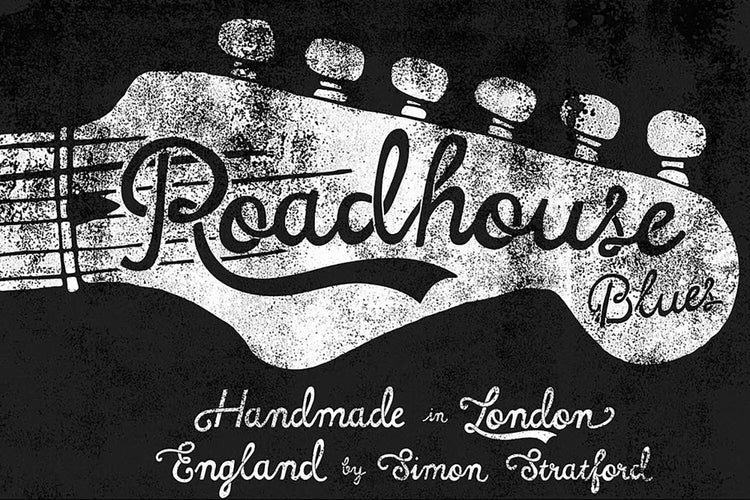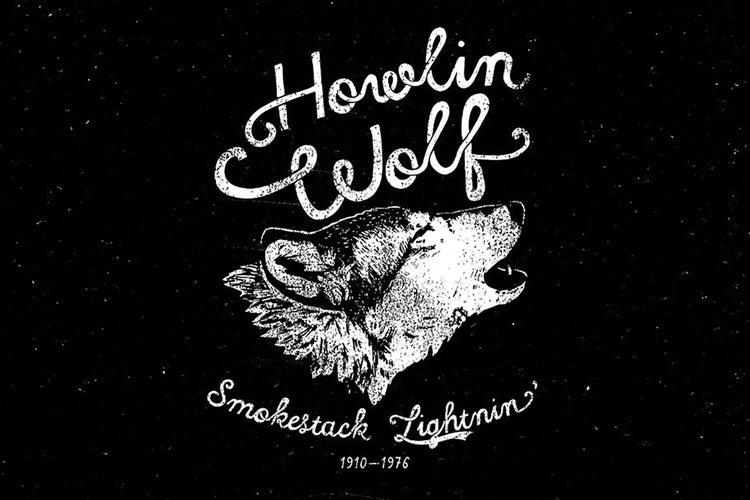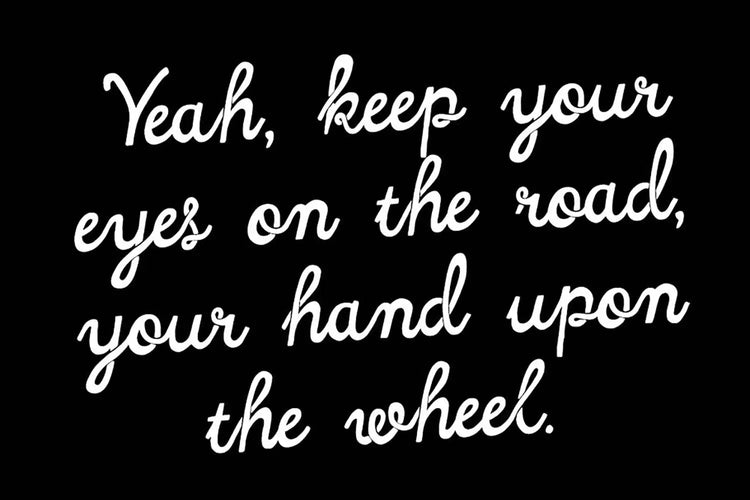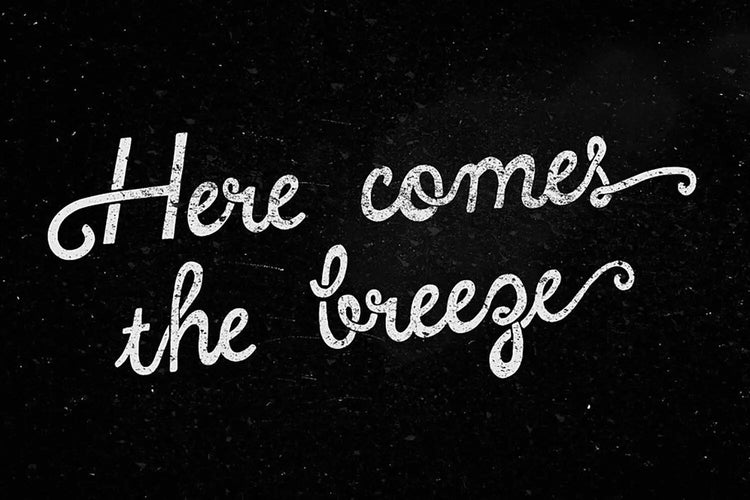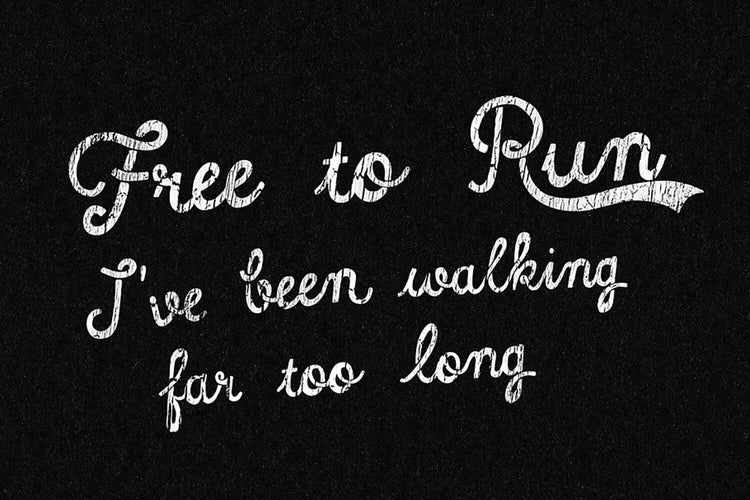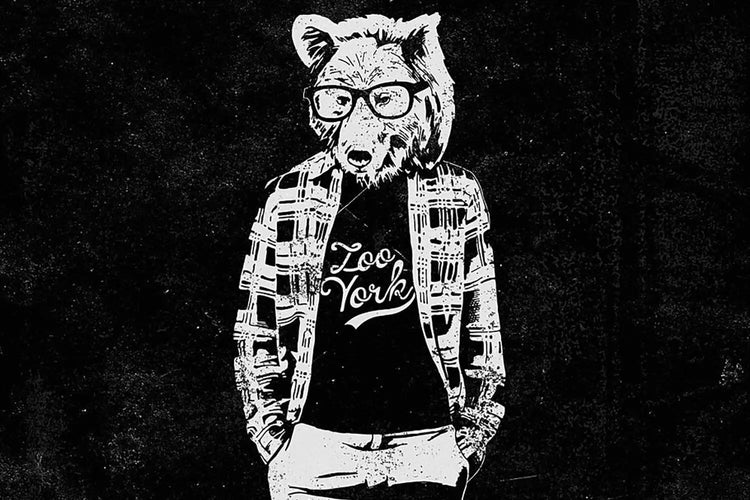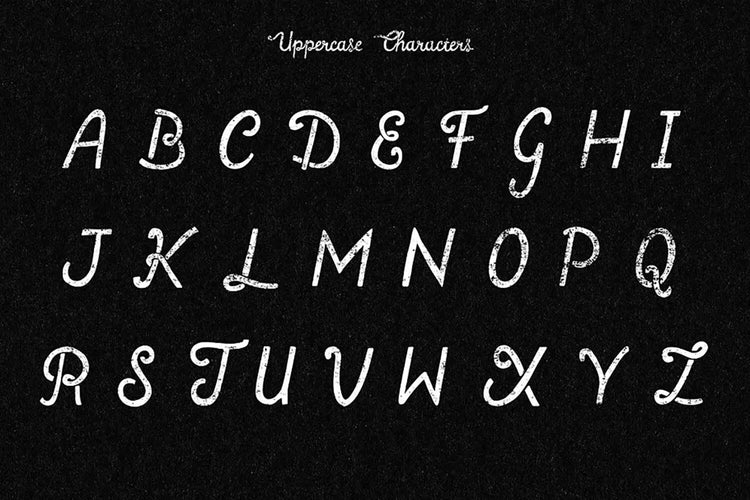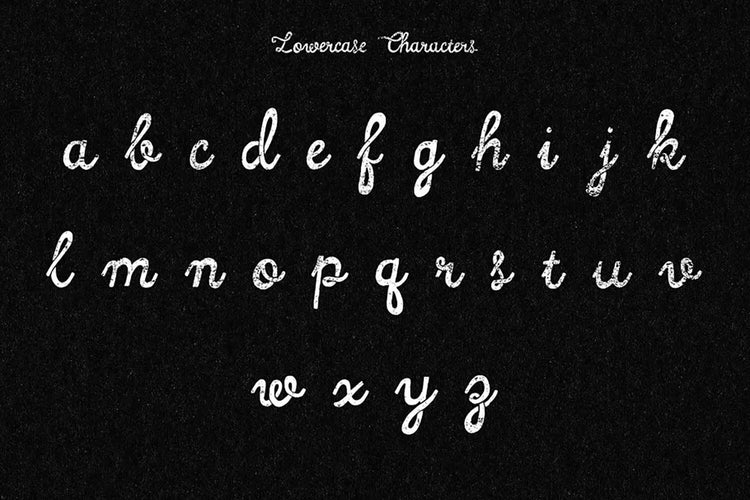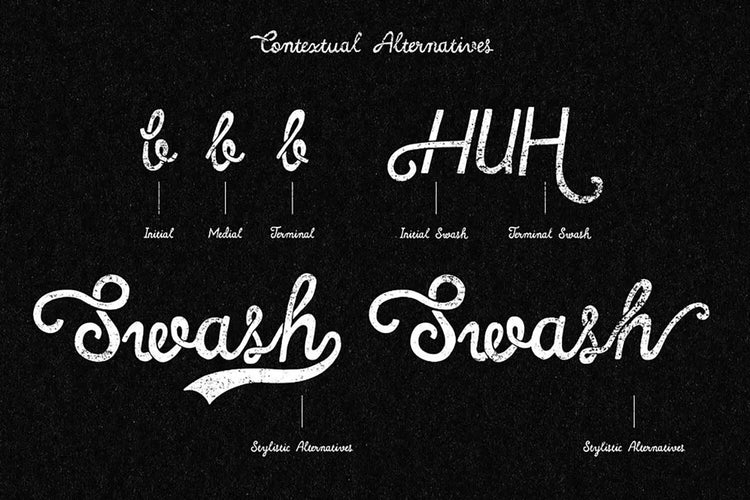
Roadhouse Blues — Loose Handwriting Script Font
About Roadhouse Blues
I love my new font called Roadhouse Blues. I named it after a Doors song of the same name.
Alright, so Roadhouse Blues, the song, is basically a rock 'n' roll journey through life's wild side.
I'm talking about freedom, rebellion, and embracing all the good things (maybe a hint of that good stuff too, if you catch my drift).
Keep your eyes on the road
Picture cruisin' down a highway, stoppin' at a roadside joint, and meeting all sorts of interesting people and adventures along the way.
It's got a slightly retro vibe. The lines in this font are a bit like life—thin here, fat there, and totally not perfect. But that's by design—I've deliberately kept those wobbly lines and uneven bits to give it more personality.
In a nutshell, Roadhouse Blues font captures that rebellious, free-spirited vibe of the counterculture. It's like a typographic time machine back to those transformative days.
If Roadhouse Blues font were a celebrity
And now, let's play a game. If this font were a celebrity, who'd it be? Well, it'd have to be Jim Morrison, wouldn't it? Just like the font, Jim had that unconventional charm and an aura of nostalgia that's just plain cool.